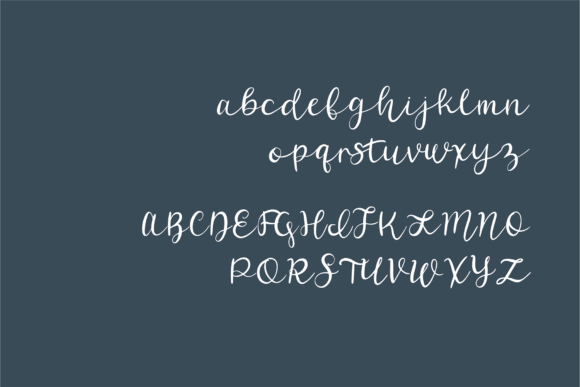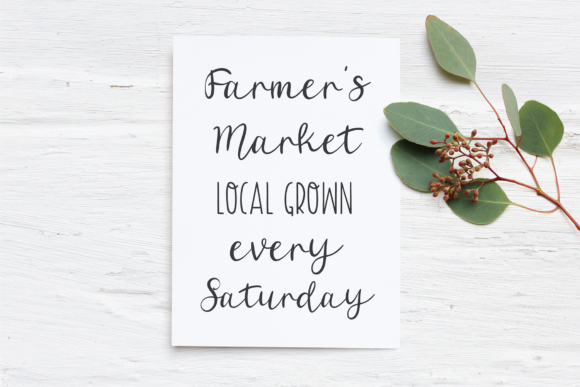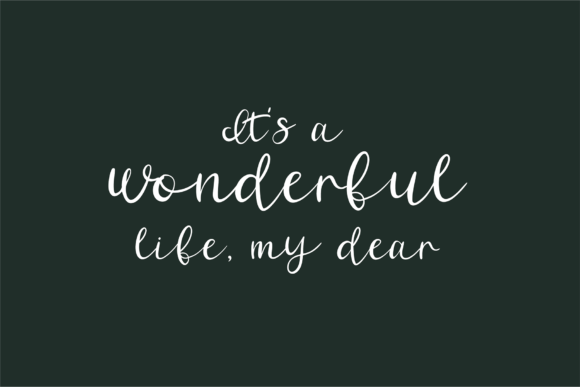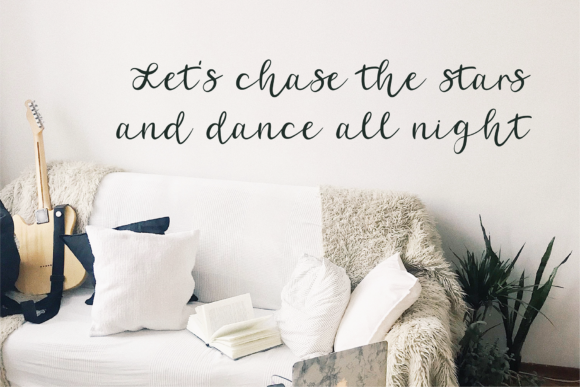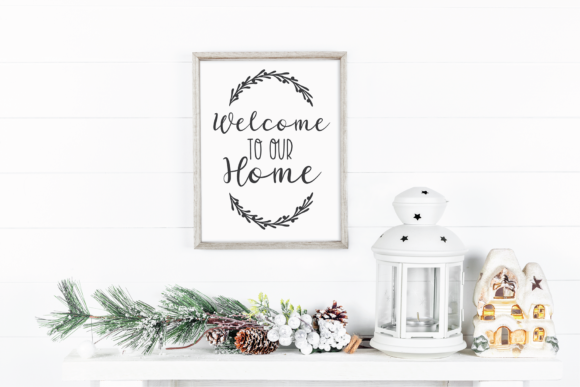
Cottage Style Font: Elevate Your Designs with this Beautiful Script Hand Lettered Font
Are you a designer or crafter looking for a unique and elegant font to take your projects to the next level? Look no further than Cottage Style, a stunning script hand lettered font that is sure to impress. With its beautiful, flowing letters and versatility, Cottage Style is the perfect addition to any design project, from branding and headings to wedding designs, invitations, signatures, logos, labels, and more.
What is Cottage Style Font?
Cottage Style is a carefully crafted script hand lettered font that exudes elegance and sophistication. Each letter has been meticulously designed to create a sense of fluidity and movement, making it perfect for designs that require a touch of whimsy and charm. The font’s unique and distinctive style is sure to set your projects apart from the rest, giving them a professional and high-end feel.
Features of Cottage Style Font
- Beautiful Script Hand Lettering: Cottage Style features beautiful, hand lettered script that is both elegant and refined.
- Versatile: This font is perfect for a wide range of design projects, from branding and headings to wedding designs, invitations, signatures, logos, labels, and more.
- Unique and Distinctive: Cottage Style’s unique and distinctive style is sure to set your projects apart from the rest.
- High-Quality: This font is designed to the highest standards, ensuring that it will look great in any design project.
Uses for Cottage Style Font
Cottage Style is a versatile font that can be used in a wide range of design projects, including:
- Branding: Use Cottage Style to create elegant and sophisticated brand identities that will set your business apart.
- Wedding Designs: This font is perfect for wedding designs, including invitations, programs, and signage.
- Headings and Titles: Use Cottage Style to add a touch of elegance to your headings and titles.
- Invitations and Stationery: Create beautiful invitations, stationery, and greeting cards with Cottage Style.
- Logos and Labels: Use this font to create unique and eye-catching logos and labels.
Why Choose Cottage Style Font?
There are many reasons why Cottage Style is the perfect choice for your design projects. Here are just a few:
- Elegant and Sophisticated: Cottage Style is the perfect choice for designers and crafters who want to add a touch of elegance and sophistication to their projects.
- Unique and Versatile: This font is both unique and versatile, making it perfect for a wide range of design projects.
- High-Quality: Cottage Style is designed to the highest standards, ensuring that it will look great in any design project.
- Easy to Use: This font is easy to use and can be easily integrated into your design projects.
Tips for Using Cottage Style Font
Here are a few tips for using Cottage Style in your design projects:
- Use it Sparingly: Use Cottage Style sparingly to add a touch of elegance and sophistication to your designs.
- Pair it with Other Fonts: Pair Cottage Style with other fonts to create a unique and eye-catching design.
- Pay Attention to Kerning: Pay attention to kerning to ensure that your text looks professional and polished.
Cottage Style is a beautiful script hand lettered font that is sure to elevate your design projects to the highest level. With its elegant and sophisticated style, versatility, and high-quality design, Cottage Style is the perfect choice for designers and crafters who want to add a touch of whimsy and charm to their projects. Whether you’re creating branding, wedding designs, headings, invitations, signatures, logos, labels, or more, Cottage Style is the perfect font for you.